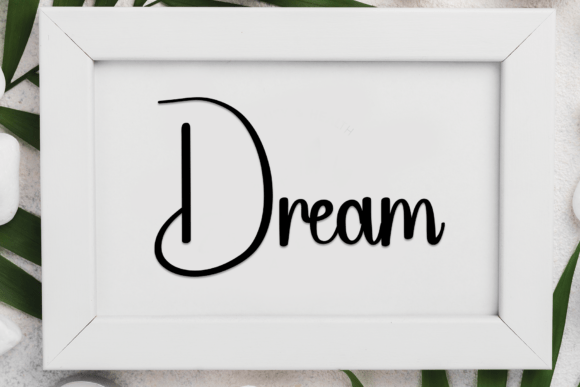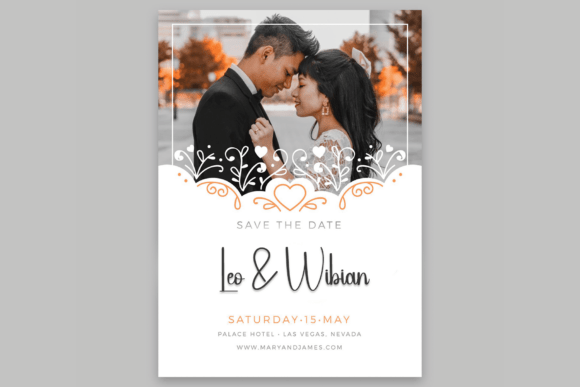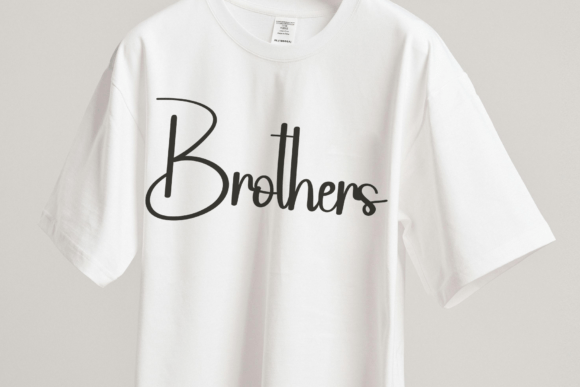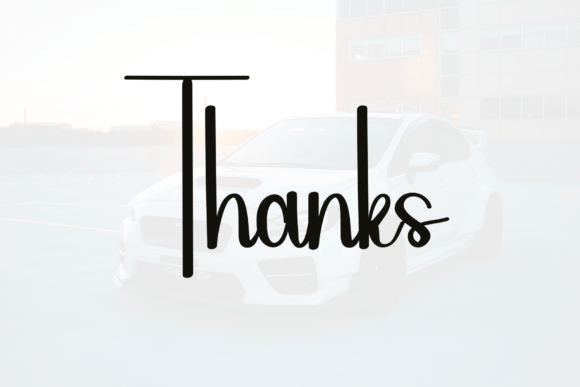
The Power of Authentic Font: Elevate Your Design with a Relaxed yet Luxurious Touch
In the world of typography, fonts play a crucial role in conveying the tone and personality of a brand or design. Among the numerous font styles available, the Authentic font stands out for its unique, handwritten aesthetic that exudes a sense of relaxation and sportiness. In this article, we’ll explore the Authentic font, its characteristics, and how it can elevate your design to new heights.
What is Authentic Font?
Authentic is a carefully crafted handwritten font that mimics the look of marker-drawn letters. Its distinct, casual feel makes it an excellent choice for designs that require a touch of elegance and sophistication without appearing too formal. The font’s relaxed and sporty vibe is perfect for a wide range of applications, from branding and logos to wedding supplies, greeting cards, and marketing promotions.
Key Characteristics of Authentic Font
- Handwritten aesthetic: Authentic font boasts a genuine, handwritten look that adds a personal touch to your designs.
- Marker-like feel: The font’s marker-like texture gives it a unique, organic feel that’s both casual and stylish.
- Relaxed and sporty vibe: Authentic font’s laid-back, sporty feel makes it perfect for designs that require a carefree, yet sophisticated approach.
- Luxurious and elegant: Despite its casual nature, Authentic font still conveys a sense of luxury and elegance, making it suitable for high-end designs.
Use Cases for Authentic Font
The versatility of Authentic font makes it an excellent choice for various design applications. Here are some of the ways you can utilize this font:
- Branding and logos: Create a lasting impression with Authentic font, perfect for logos and branding materials that require a unique, memorable touch.
- Wedding supplies: Add a personal, elegant touch to your wedding designs, such as invitations, programs, and decorations.
- Greeting cards: Create heartfelt, stylish greeting cards for special occasions, like birthdays, holidays, or thank-you notes.
- Fashion and lookbooks: Elevate your fashion designs with Authentic font, ideal for lookbooks, catalogs, and marketing materials.
- Marketing promotions: Stand out in the crowded market with Authentic font, suitable for promotional materials, such as flyers, brochures, and social media graphics.
Tips for Using Authentic Font Effectively
To get the most out of Authentic font, consider the following tips:
- Pair with complementary fonts: Combine Authentic font with other fonts that complement its style, such as sans-serif fonts for a clean, modern look.
- Experiment with colors: Play with different color schemes to find the perfect match for your design and the Authentic font.
- Pay attention to spacing: Ensure that the spacing between letters and lines is balanced, as Authentic font’s marker-like texture can make it appear dense.
In conclusion, Authentic font is a versatile, stylish font that can elevate your designs with its unique, handwritten aesthetic. Its relaxed and sporty vibe, combined with its luxurious and elegant feel, make it an excellent choice for a wide range of applications. By understanding the characteristics and use cases of Authentic font, you can unlock its full potential and create stunning designs that leave a lasting impression.
Whether you’re a designer, crafter, or simply someone looking to add a personal touch to your projects, Authentic font is an excellent addition to your typography arsenal. So, go ahead and experiment with Authentic font – your designs will thank you!